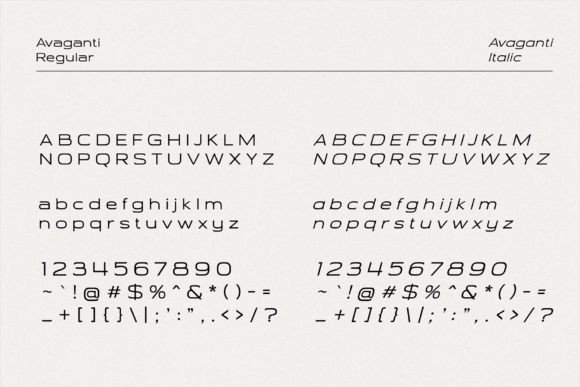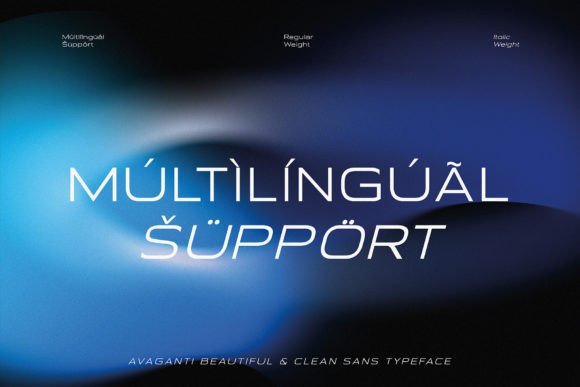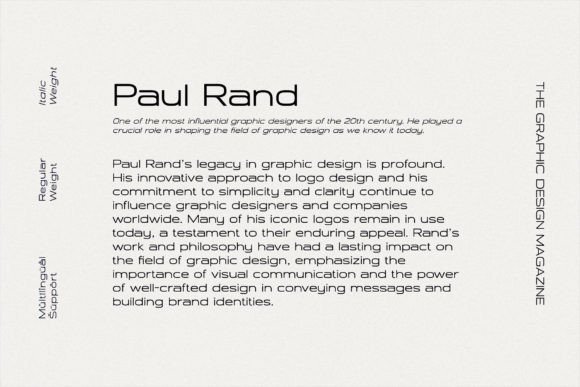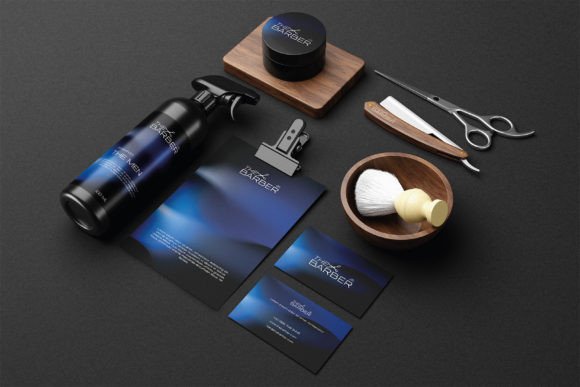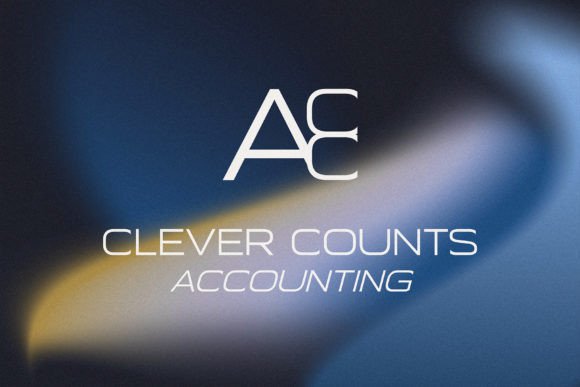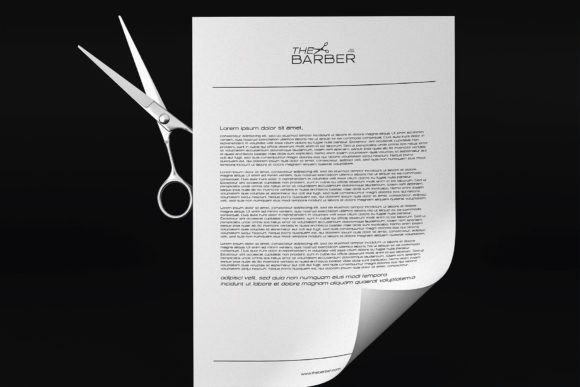
Elevate Your Design: Discover the Avaganti Font
Have you ever sat at your desk, staring at a blank page, and thought, ‘This design needs something special’? You know the feeling – it’s that moment of creative frustration that sparks an idea and sets you on a quest for the perfect solution. For designers, this moment is all too familiar, and that’s where the Avaganti Font comes in – a sleek and versatile Clean Sans Typeface designed to take your designs to new heights.
Avaganti Font is more than just a typeface; it’s a statement of elegance, precision, and creativity. It’s your secret weapon to crafting visually stunning and unforgettable designs. With its clean lines and sophisticated feel, Avaganti Font is the perfect tool for designers looking to elevate their projects and captivate their audience.
Avaganti Font Key Features
- Font Family: Avaganti is a modern sans-serif font family designed for use in digital and print media.
- Font Size: Available in 8 font weights, ranging from Light to Extra Bold, to cater to various design needs.
- Resolution: Designed for use at high resolutions, making it ideal for digital displays and print media.
- Unique Characteristics: Avaganti features a unique blend of geometric and organic shapes, resulting in a clean and modern aesthetic.
Avaganti Font Review
When I first laid eyes on the Avaganti font, I was immediately drawn to its unique and elegant aesthetic. ✨ The font’s subtle curves and distinctive letterforms make it perfect for designers looking to add a touch of sophistication to their projects.
- ✨ The Avaganti font is highly legible, even at small font sizes, making it ideal for body text and other long-form content.
- ✨ The font’s versatility shines through in its ability to work seamlessly with a wide range of design styles, from modern and minimalist to traditional and ornate.
- ✨ The Avaganti font is also highly customizable, allowing designers to tweak the font’s weights, styles, and spacing to suit their specific needs.
However, there are a few limitations to be aware of. ⚠️ The Avaganti font may not be the best choice for projects requiring a bold, attention-grabbing font, as its delicate nature can sometimes make it difficult to read in certain contexts.
Overall, I’m impressed with the Avaganti font’s unique character and versatility. While it may not be the perfect fit for every design project, it’s definitely worth considering for those looking to add a touch of elegance and sophistication to their work.
Avaganti font is particularly well-suited for creative projects, such as infographics, social media graphics, and posters.
Avaganti font can be used for a variety of purposes in Photoshop and Illustrator, including typography-based art and creative graphics.
Avaganti font is a great choice for presentations, reports, and other formal documents where a creative touch is desired.
Avaganti font is ideal for:
- Infographics and data visualizations
- Social media graphics and posts
- Posters and flyers
- Presentation slides and reports
Yes, the Avaganti Font is designed to be highly legible at small text sizes. It features a clear and open design, with a high x-height and a large counter area, making it easy to read even at very small sizes.